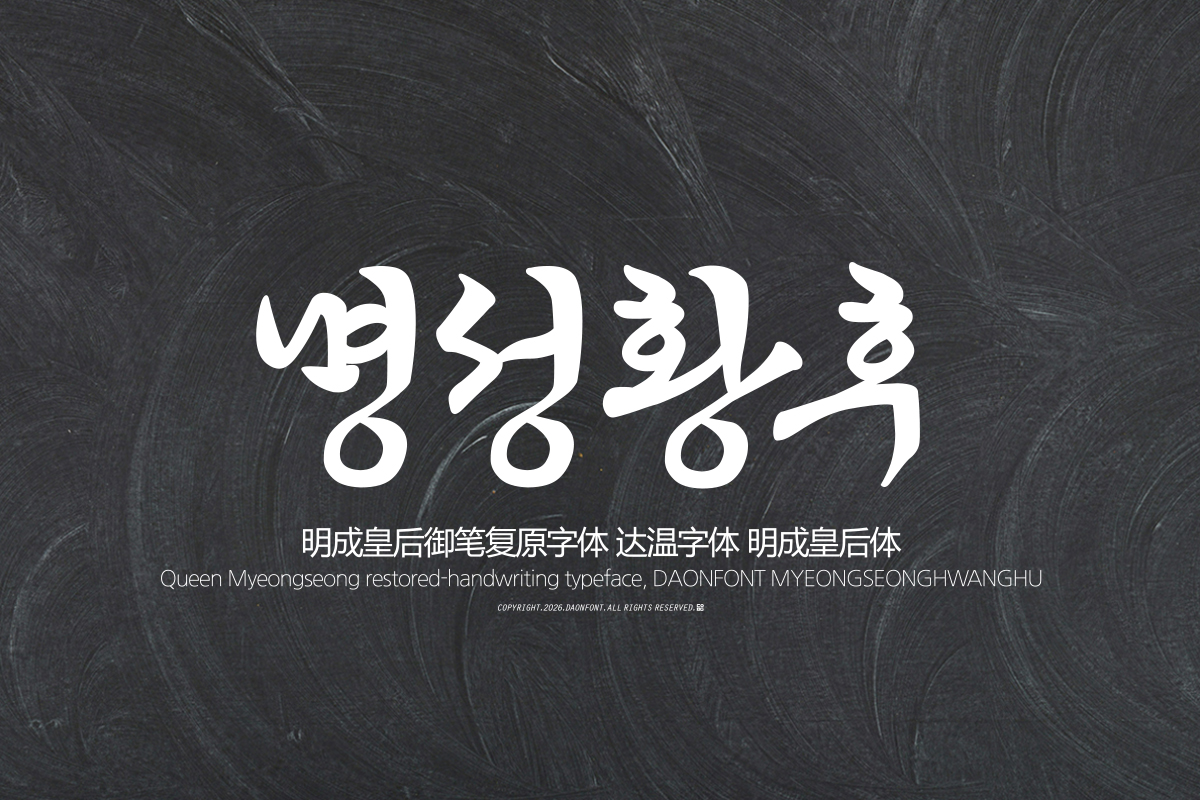
DAON MYUNGSUNGCHE(B)
'MYUNGSUNGCHE' font is a Hangul typeface created by restoring the handwritten letters of Empress Myeongseong, a historical figure from the late Joseon Dynasty, into a digital typeface. While capturing the historical sentiment and diverse brushstrokes, this font has been meticulously reinterpreted to ensure stable usability in modern design.